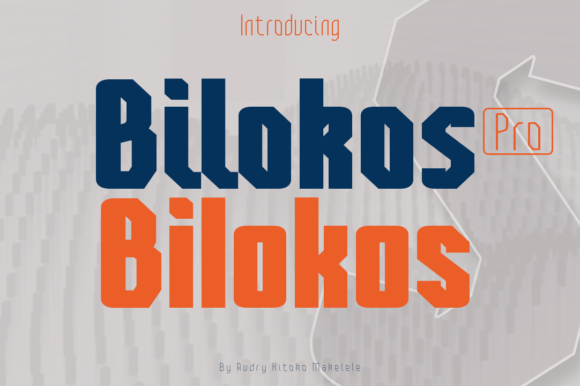
I still remember the frustration of working on a project, hours pouring into every detail, only to hit a roadblock: finding the right font. My client wanted something bold, futuristic, and attention-grabbing. I scoured the internet, tried countless fonts, but nothing seemed quite right. That was until I stumbled upon **Bilokos Pro**. This cool, techno, and bold display font has been a game-changer for my designs, and I’m excited to share my experience with you.
An Honest Review of Bilokos Pro
- ✨ **Futuristic vibe**: Bilokos Pro has a sleek, modern aesthetic that’s perfect for tech, sci-fi, or innovative projects.
- ✅ **Highly legible**: Despite its boldness, the font remains easy to read, even at smaller sizes.
- 💡 **Versatile**: Use it for titles, headings, or even short paragraphs – Bilokos Pro adapts well to different contexts.
While Bilokos Pro is an excellent font, there are a few things to keep in mind:
- 🤔 **Limited use for body text**: Due to its boldness, Bilokos Pro might not be the best choice for lengthy paragraphs or body text.
- ⚠️ **Glyph support**: Some special characters or glyphs might not be included, so be sure to check the font’s specifications before use.
The Designer Inspiration Behind Bilokos Pro
According to its designer, Bilokos Pro was inspired by futuristic sci-fi movies and video games. The goal was to create a font that embodies innovation, technology, and boldness. The result is a font that’s both modern and attention-grabbing.
Q: What type of projects is Bilokos Pro best suited for?
A: Bilokos Pro excels in projects that require a bold, futuristic aesthetic, such as tech branding, sci-fi movies, or innovative product designs.
Q: Does Bilokos Pro support OpenType features?
A: Yes, Bilokos Pro includes OpenType features, such as stylistic alternates and glyphs, which can enhance your designs.
Q: Can I use Bilokos Pro for both digital and print projects?
A: Absolutely! Bilokos Pro is versatile and can be used for both digital and print projects, from social media graphics to business cards and brochures.